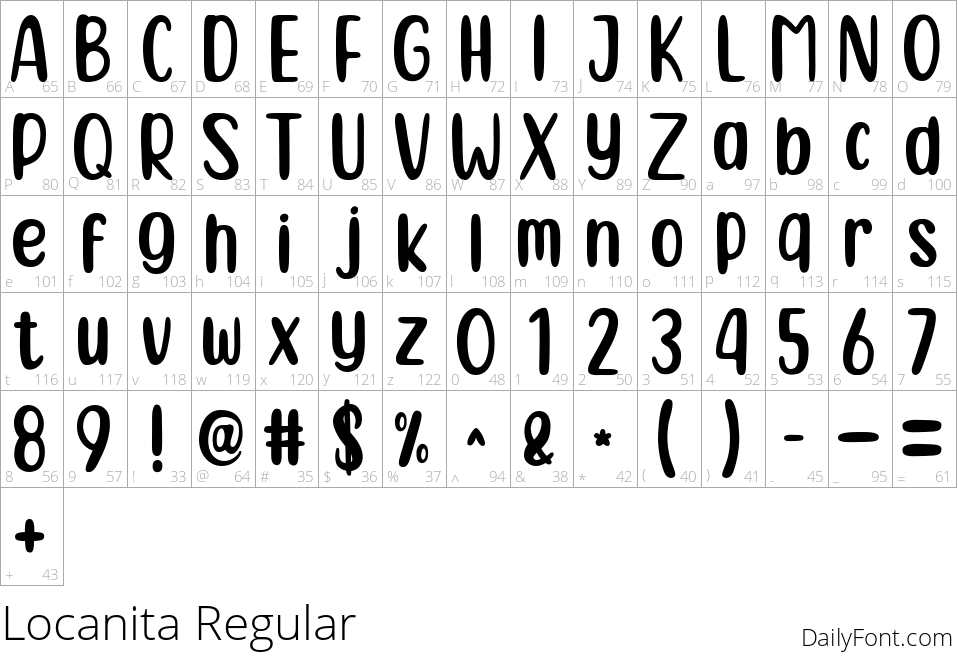
Locanita
Looking for a playful, whimsical font that exudes creativity and fun? Search no more! We've got just the ticket - a charming display font that's sure to bring a smile to anyone's face. This delightful script is perfect for adding a touch of magic to your next project, whether it's a kids' book, school presentation, or even a website.
With its childlike playfulness and carefree spirit, this font is designed to spark imagination and inspire creativity. Its unique, hand-drawn style features irregular lines, playful flourishes, and a dash of mischief - making it the perfect choice for projects that require a touch of whimsy.
Whether you're a designer looking to add some personality to your next design, or a parent seeking a fun font for your little one's school project, this enchanting display font is sure to delight. So why settle for boring, generic fonts when you can have a font that's full of life and character? Try Locanita today and get ready to unleash your inner child!